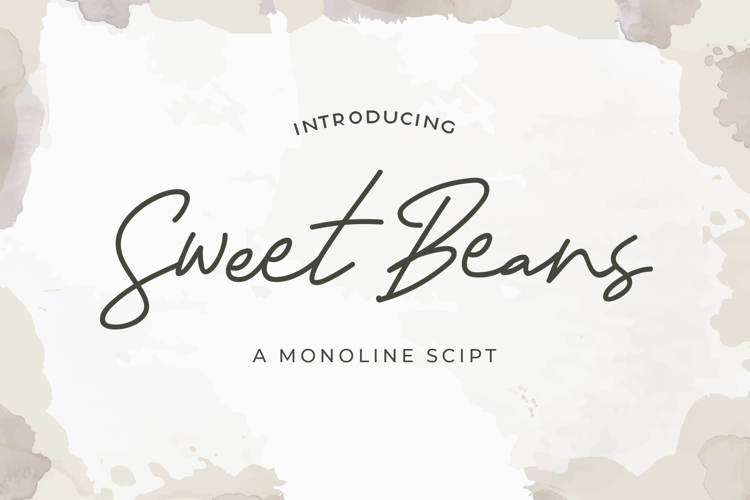
Sweet Beans Font
About Sweet Beans Font
Sweat Beens is a casual monoline script font. It maintains its classy calligraphic influences while feeling contemporary and fresh. This versatility will appeal to a wide range of crafty ideas, from letterheads and titles, to stationery.